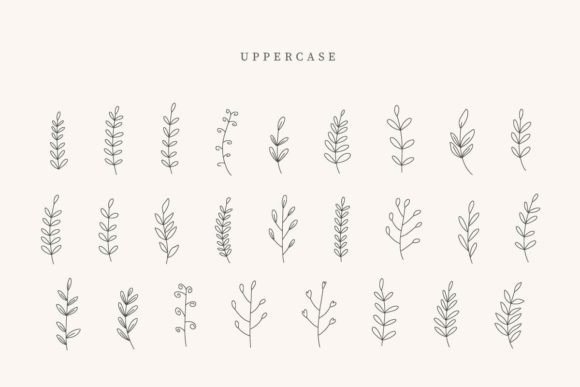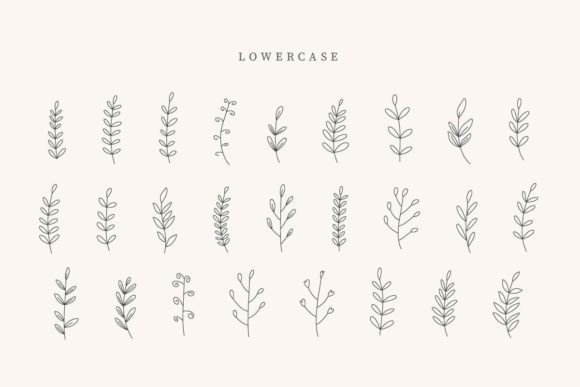
Introduction to Beach Leaves Font
Embrace the beauty of nature with Beach Leaves, an enchanting and adorable dingbat font filled with delightful doodle-style leaf illustrations.
This whimsical font is perfect for adding a touch of rustic charm and creativity to your designs Whether you’re creating wedding invitations, nature-themed artwork, or scrapbooking projects, Baby Leaves will bring a breath of fresh air to your creations.
Key Features of Beach Leaves Font
Why Choose Beach Leaves Font?
Beach Leaves Font offers exceptional quality and versatility, making it a valuable addition to your design toolkit. Whether you’re creating for personal projects or commercial use, Beach Leaves Font delivers professional results.